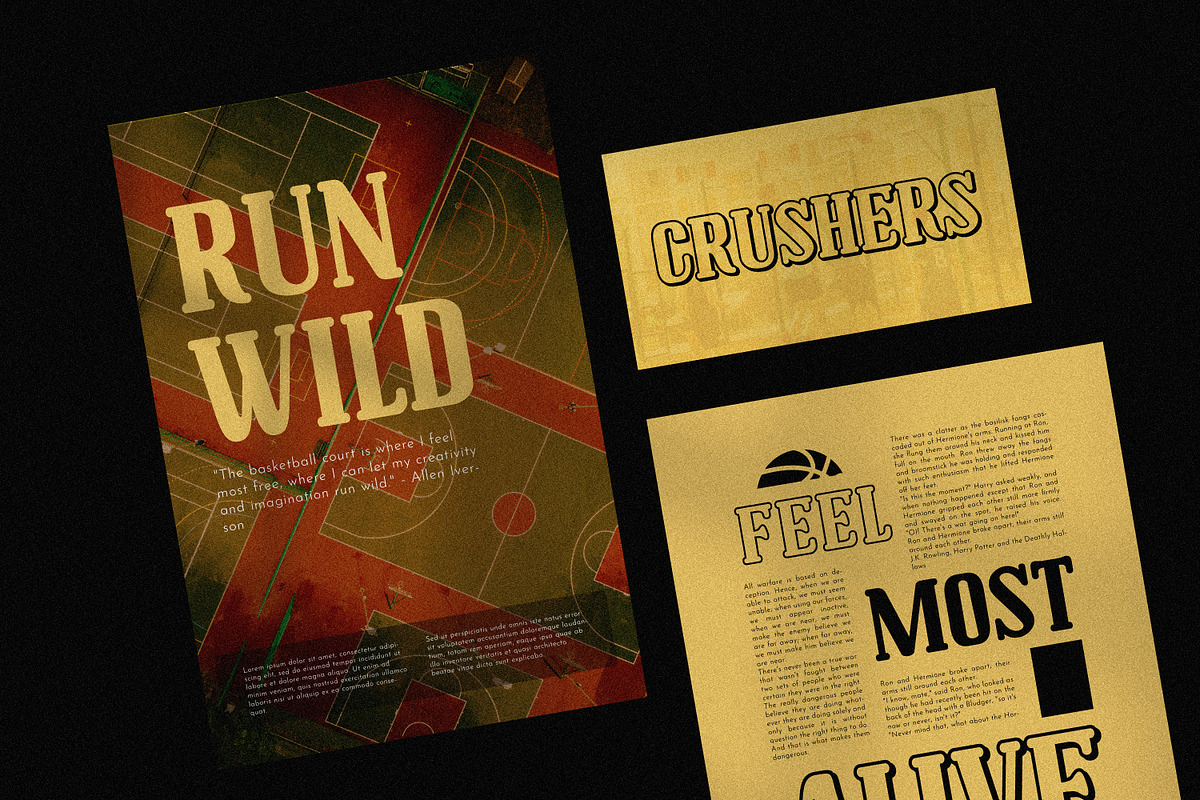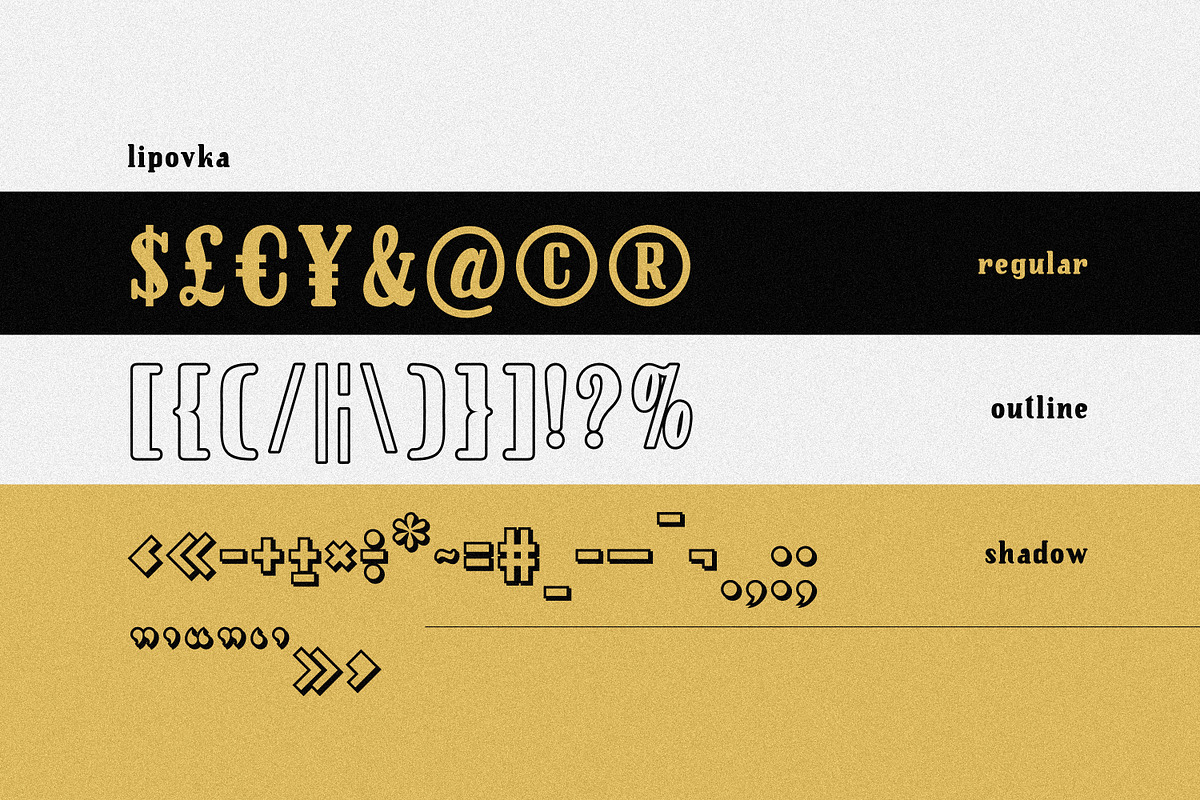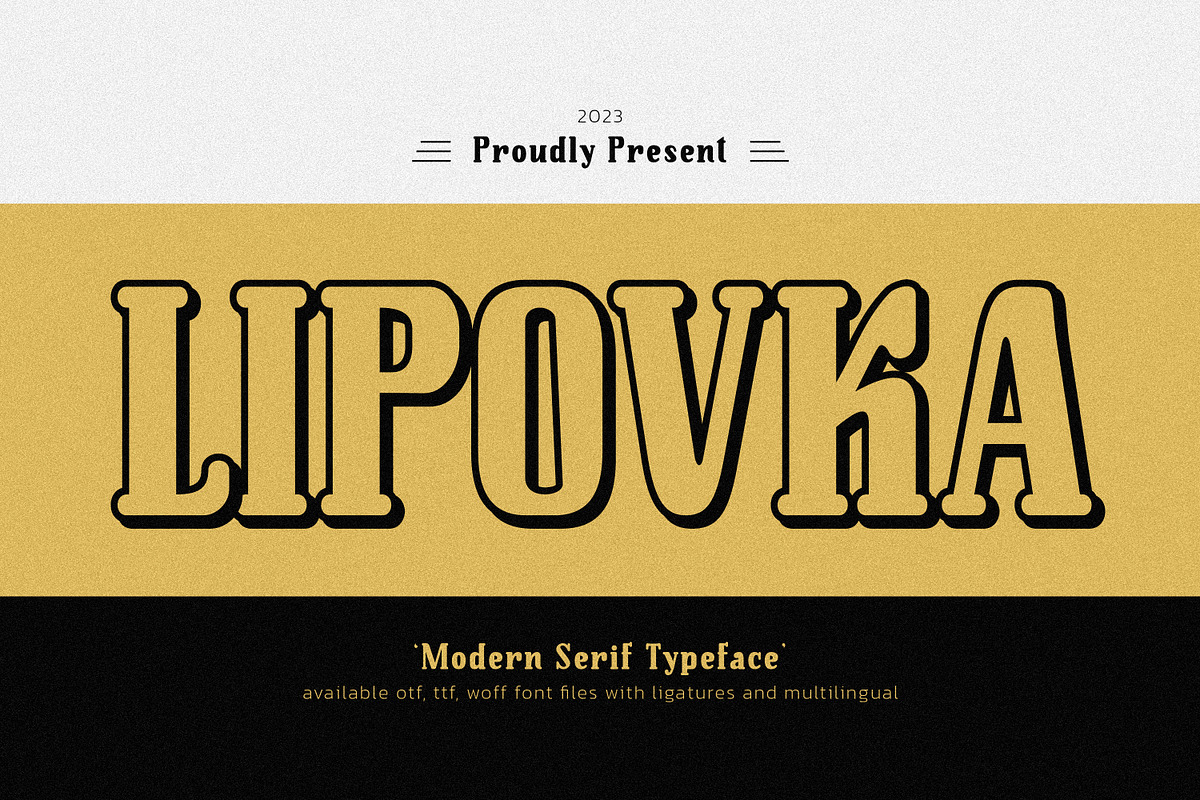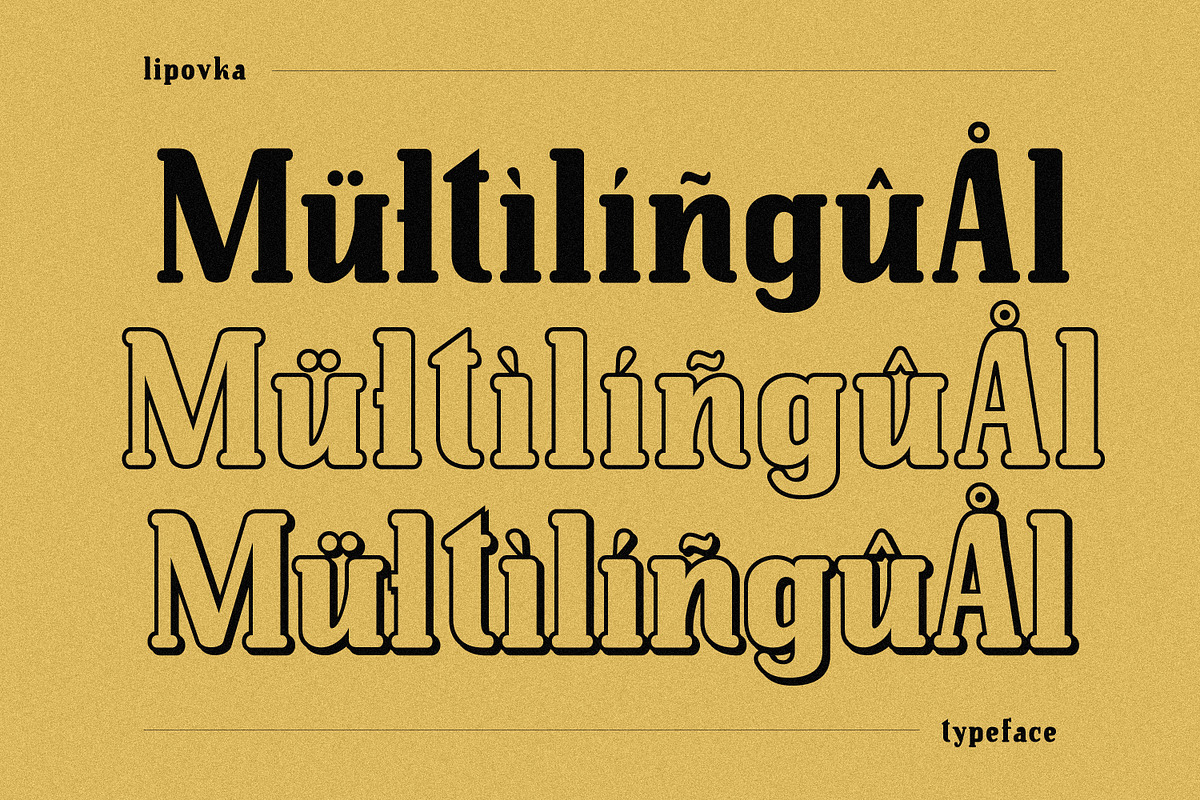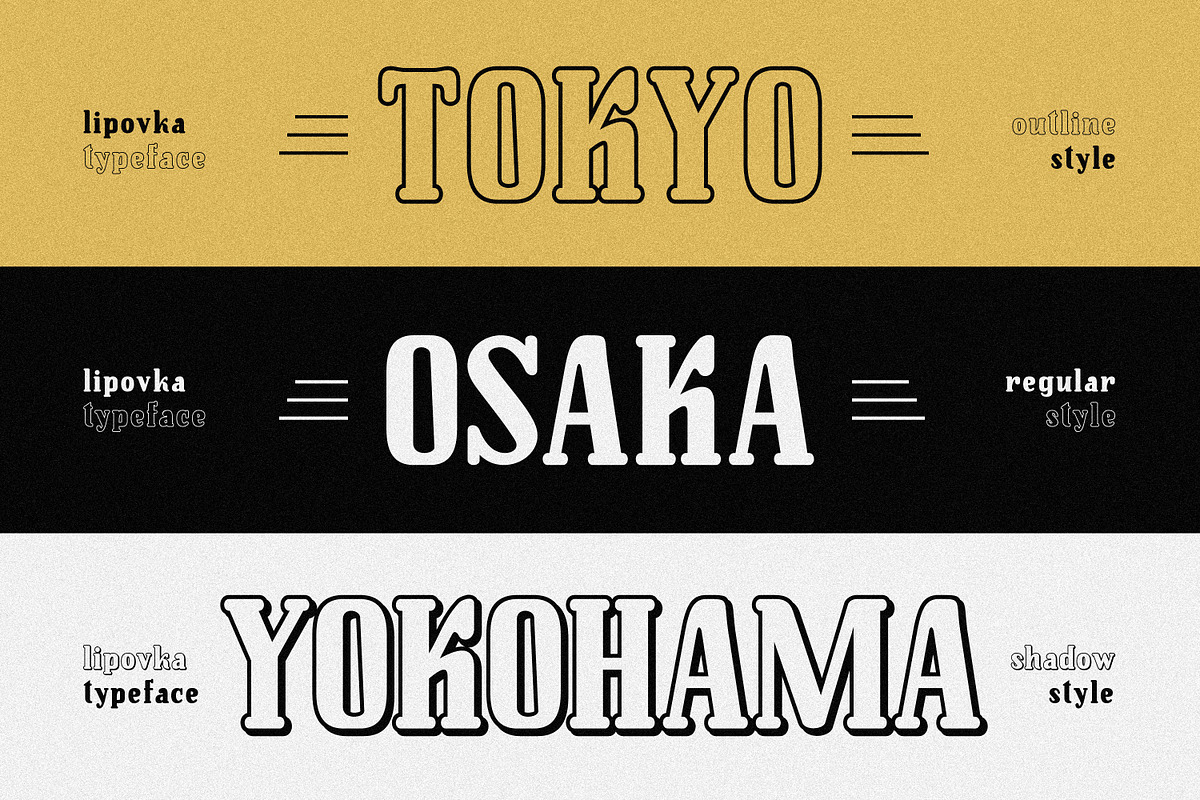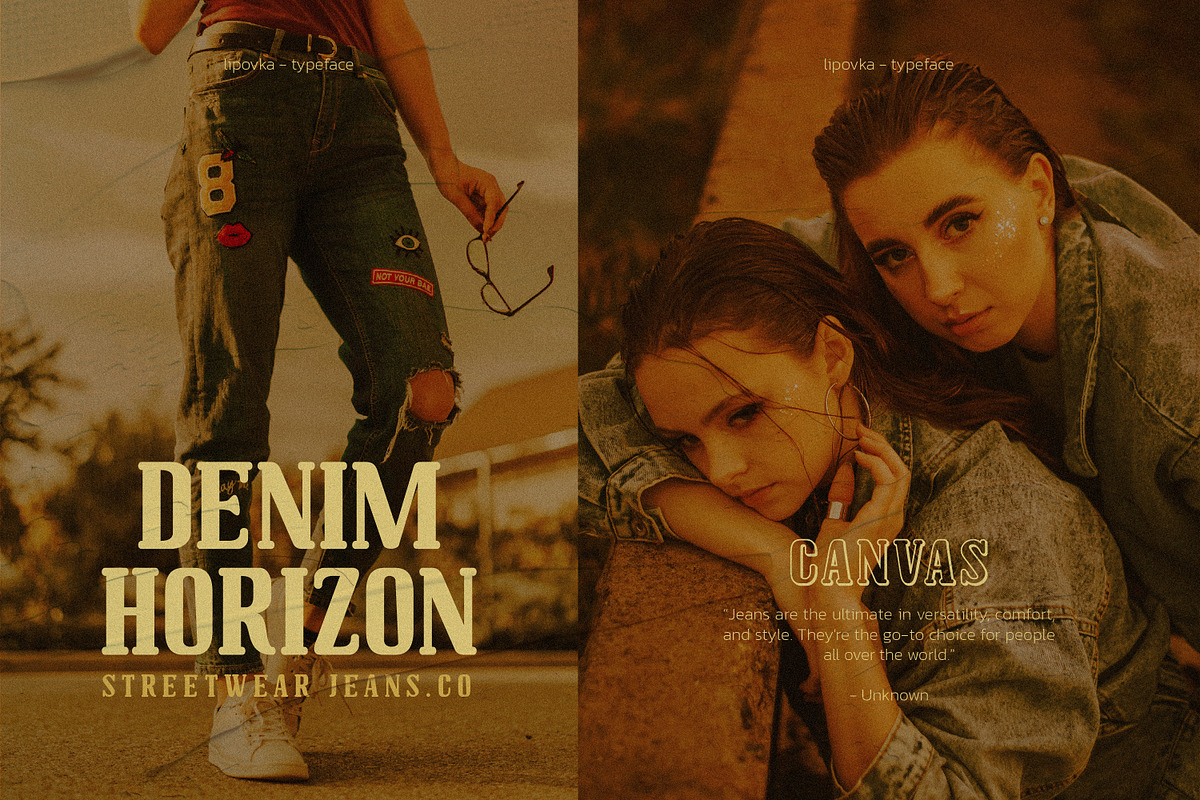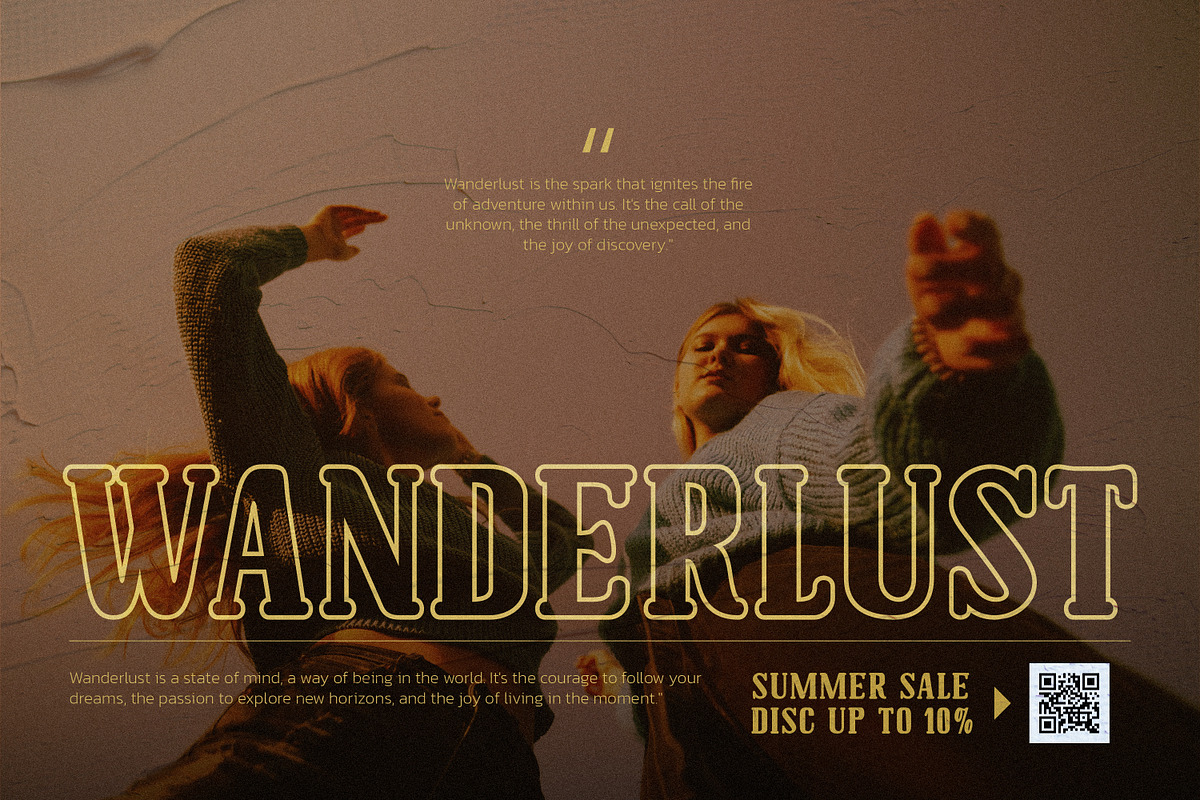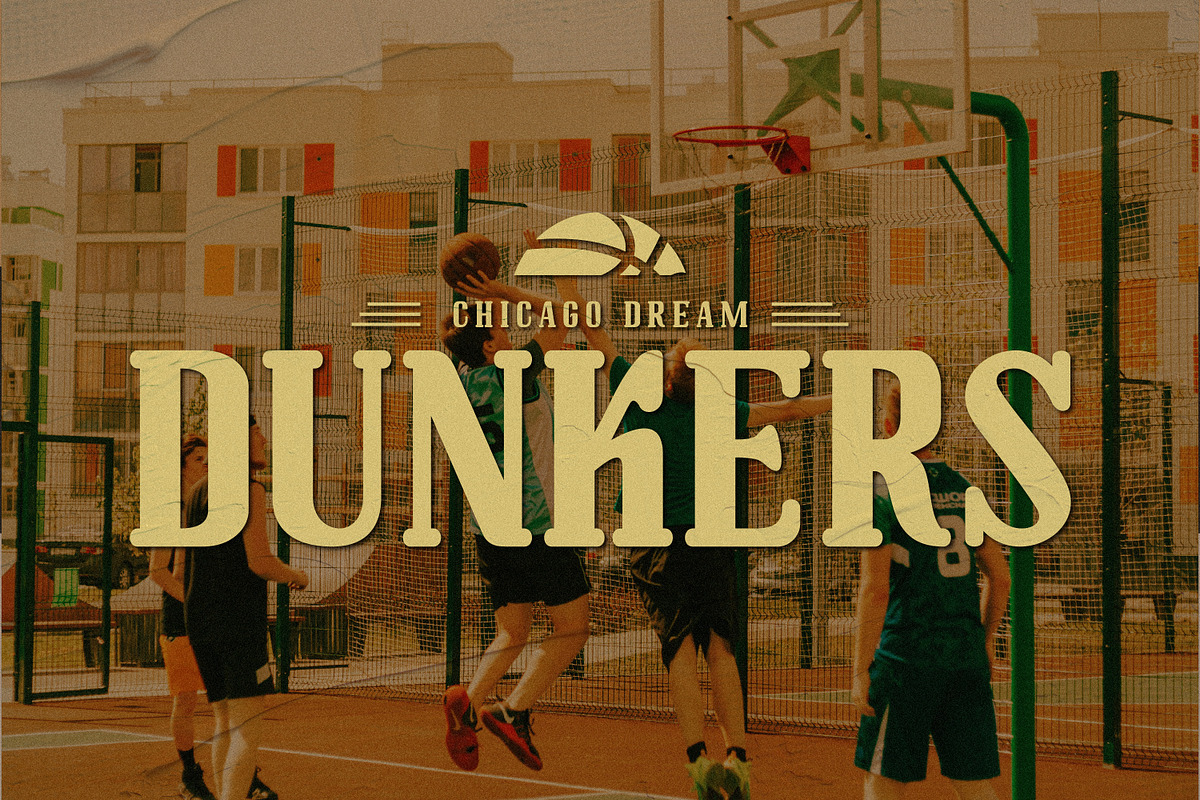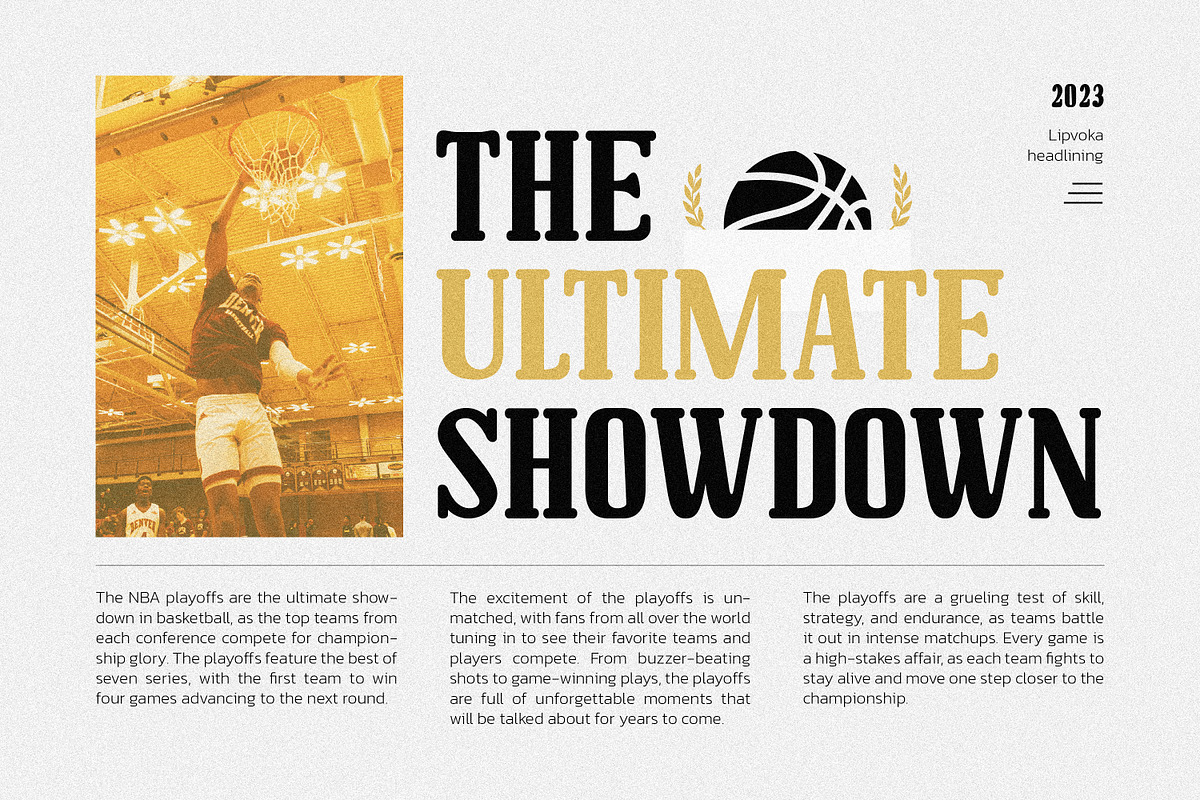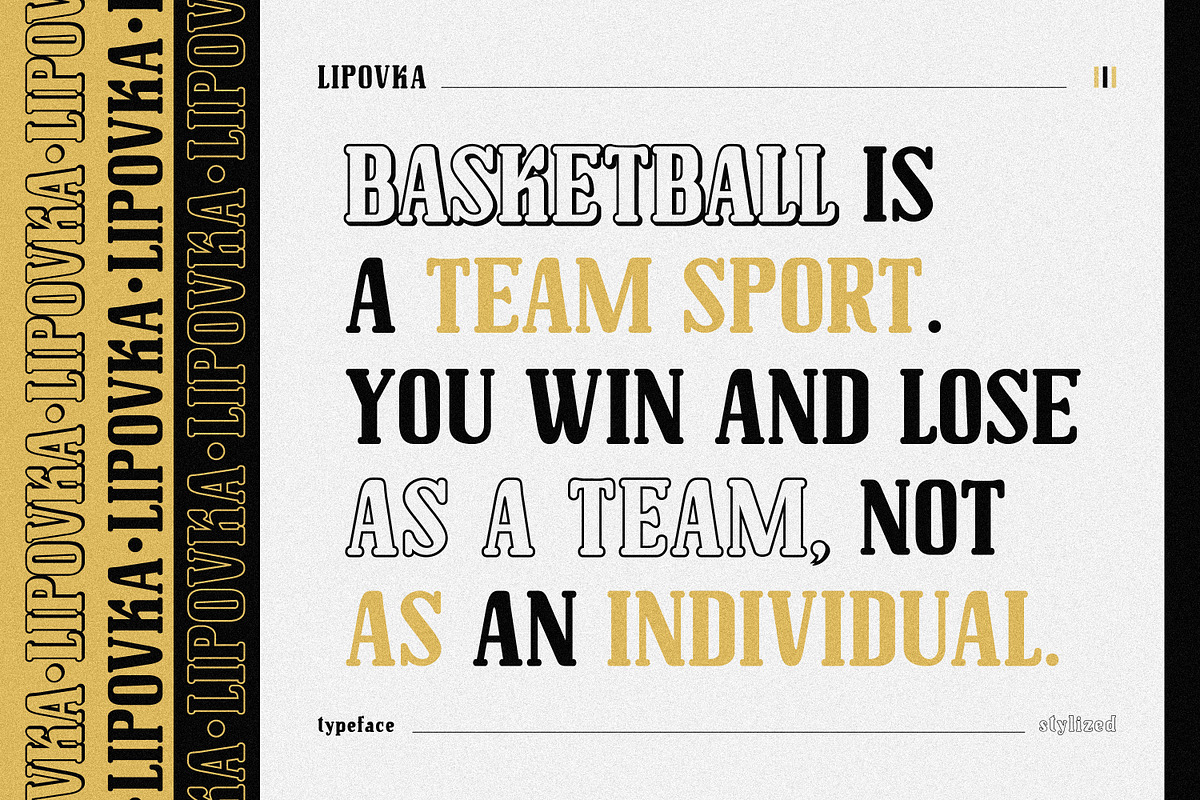
Lipovka Elegant Sans Serif
Lipovka is both stylish and aesthetic, with graceful curves and elegant sans-serifs that exude sophistication. The letters are well-crafted, with a balance between the thick and thin strokes that give it a timeless feel. Its refined and classic look makes it perfect for luxury brands, editorial design, and print materials.